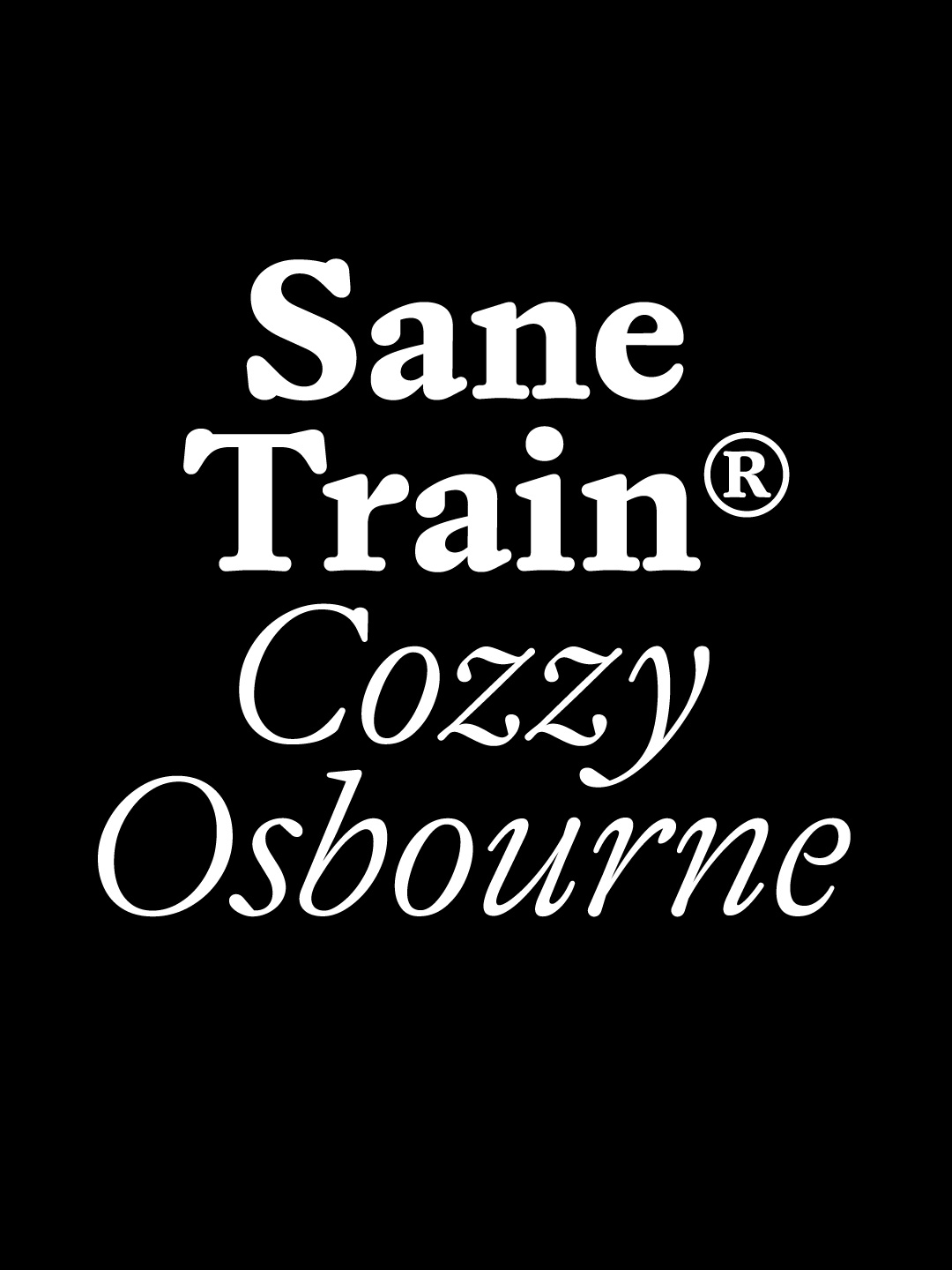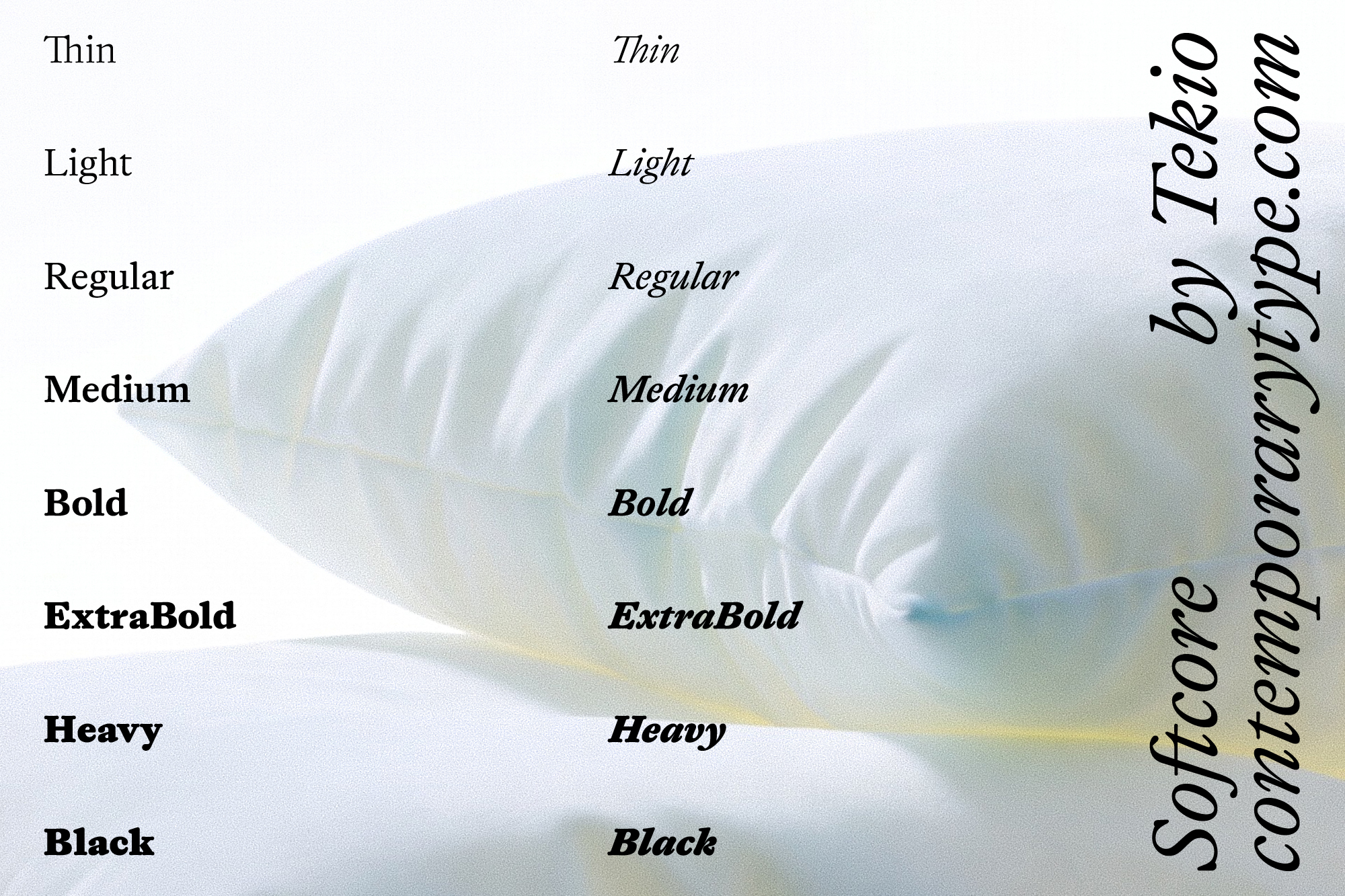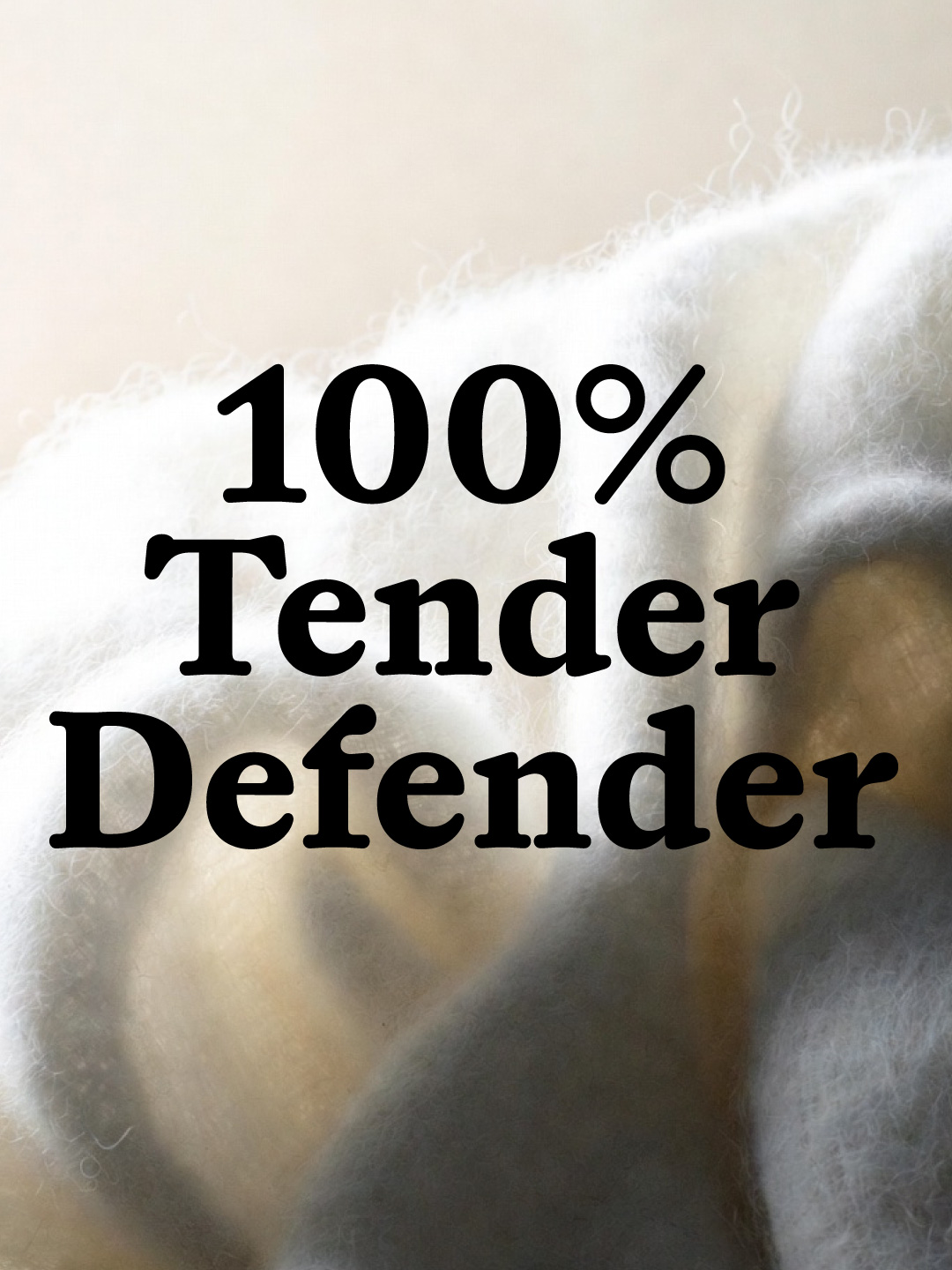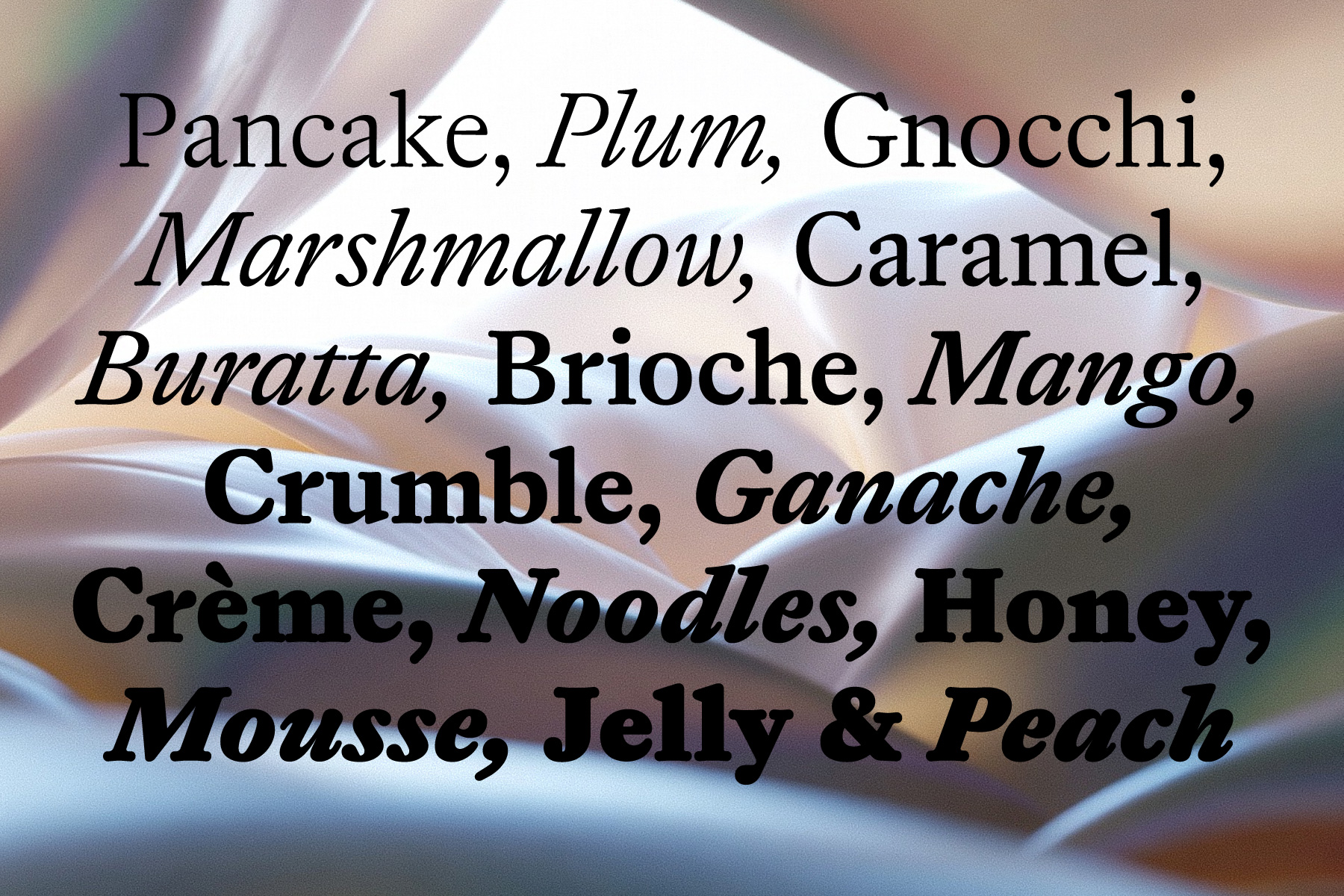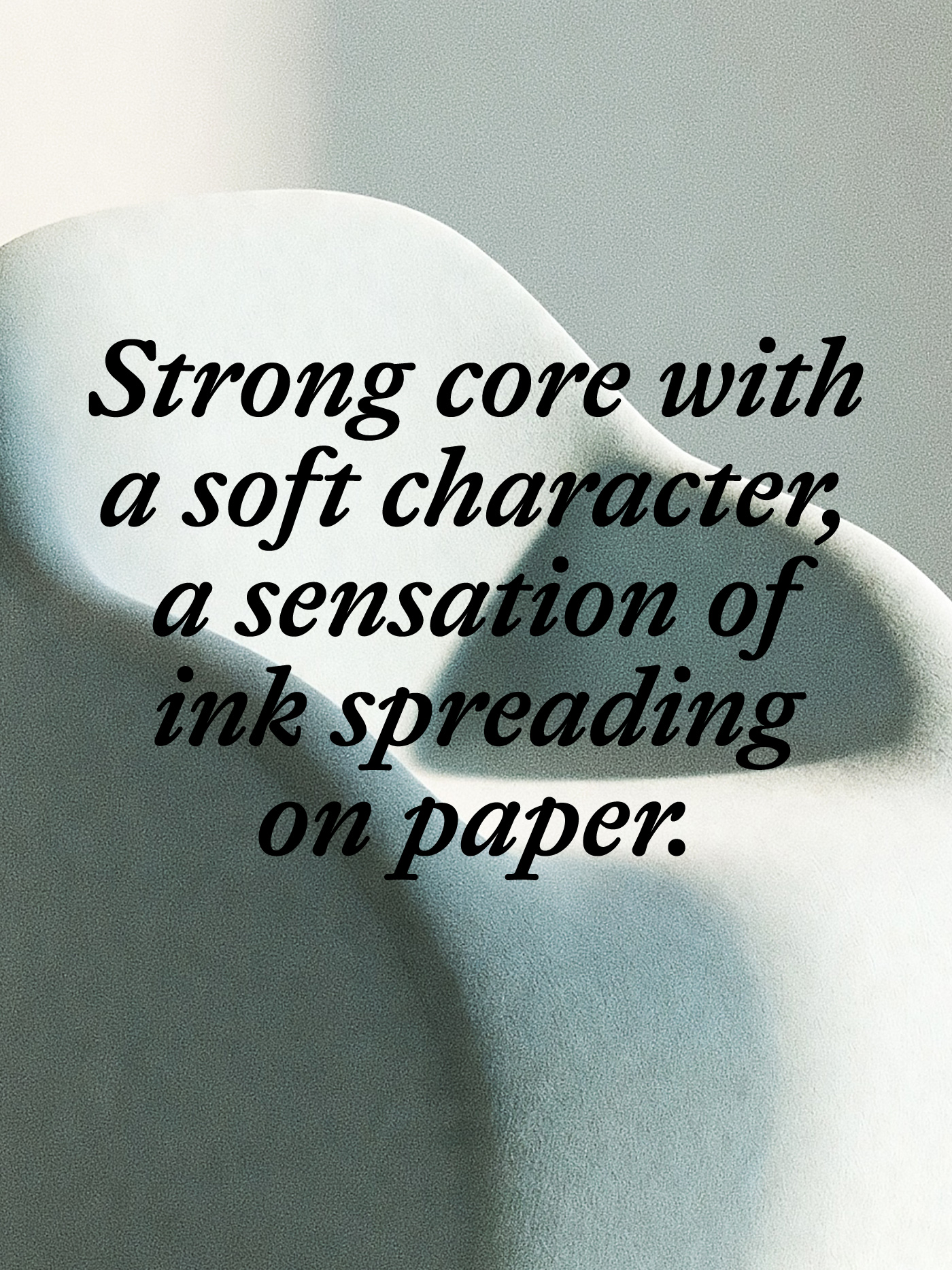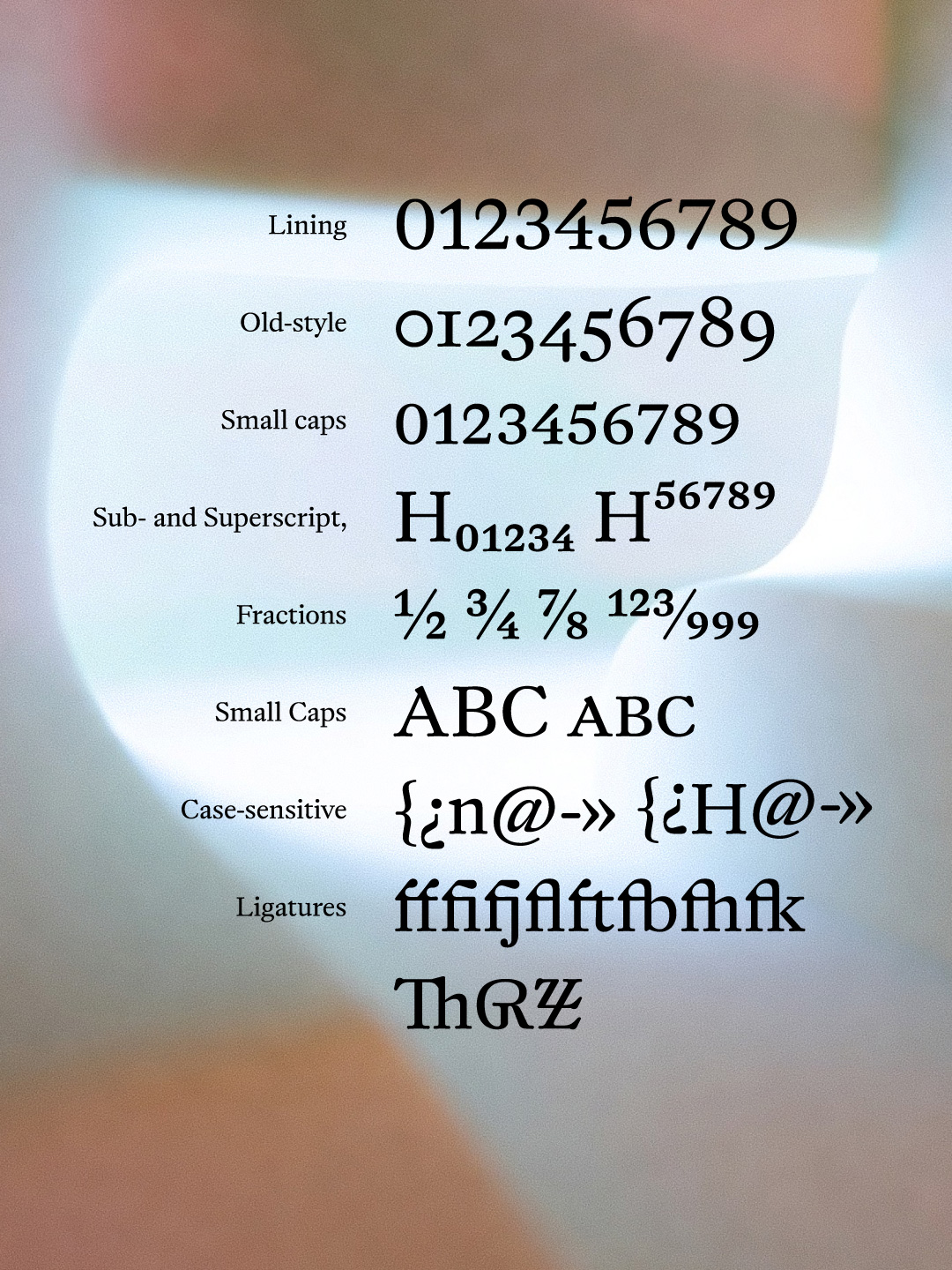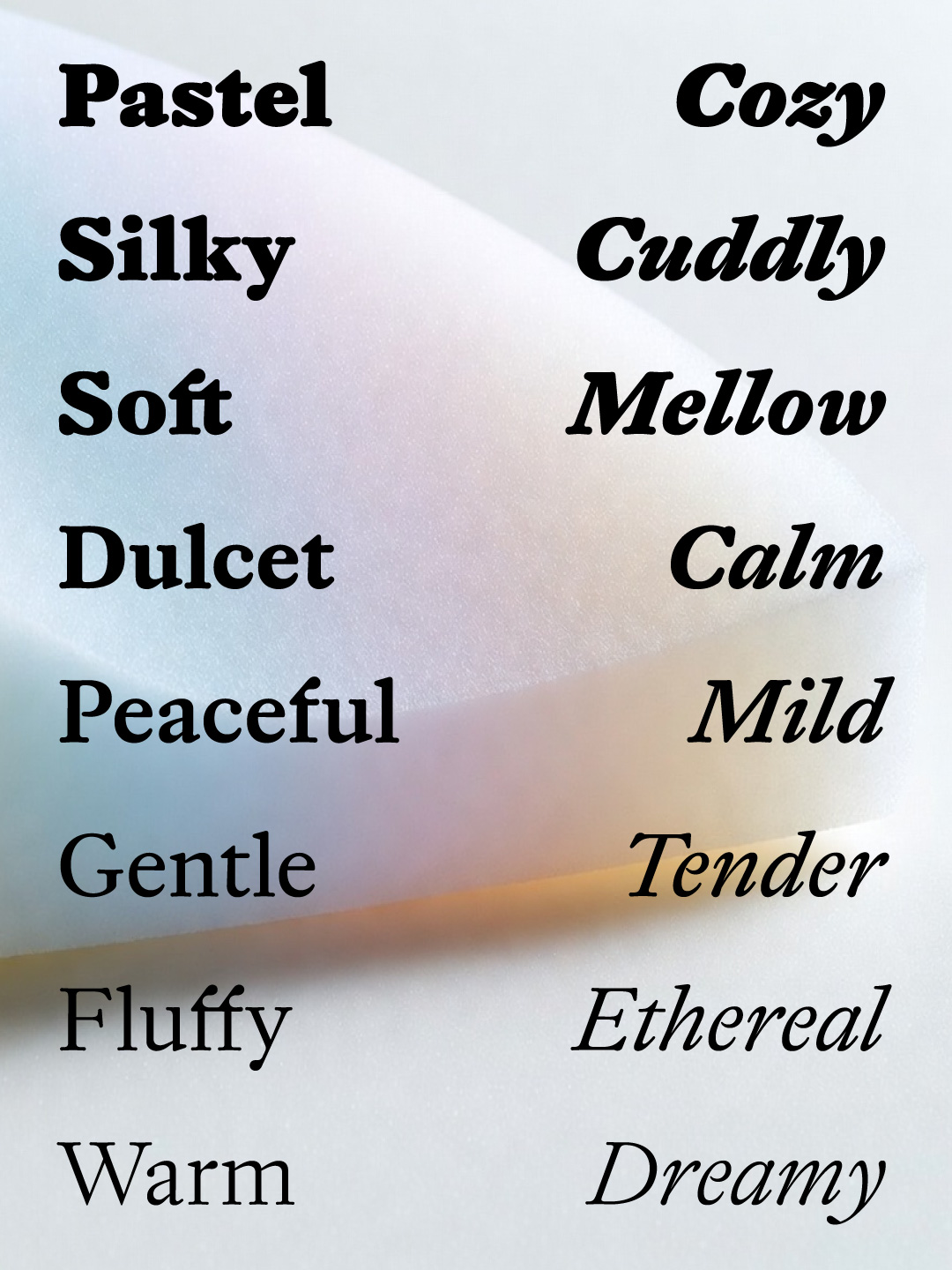
Foundry:
Tekio
Released:
October 11, 2025
Styles:
18
Category:
serif
Tone:
casual
Use size:
large, medium, small
Width:
normal
Weight:
light, regular, medium, bold
Contrast:
medium
Other:
variable, italic, rounded
About the typeface
Softcore is a warm, contemporary serif typeface rooted in 18th century German-Dutch typography. Its construction is inspired by J.M. Fleischmann’s work. It has a strong core with a soft character, a sensation of ink spreading on paper. Despite historical roots, its shapes have been reinvented for the digital realm. Its soft, rounded strokes are an effect of sketches made with a modern tool, a rounded, felt tip marker. The shapes were digitised with precise outlines that thrive in display sizes and optimised for smaller and longer texts, where it keeps legibility and a balanced texture. The family consists of a whole range of weights, from Thin to Black, with corresponding Italics, available in static and variable formats.